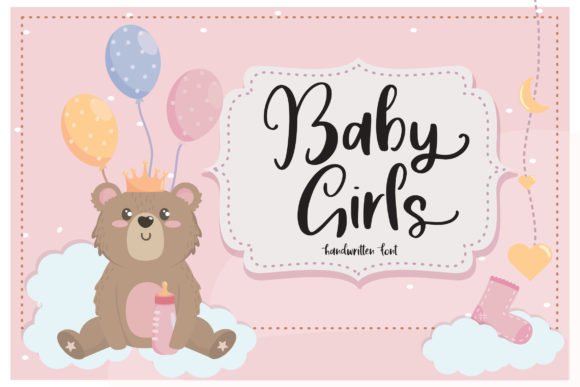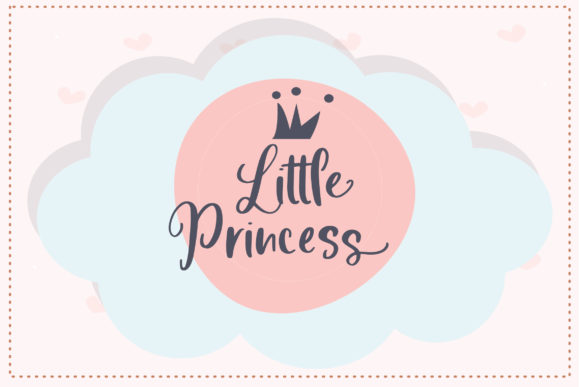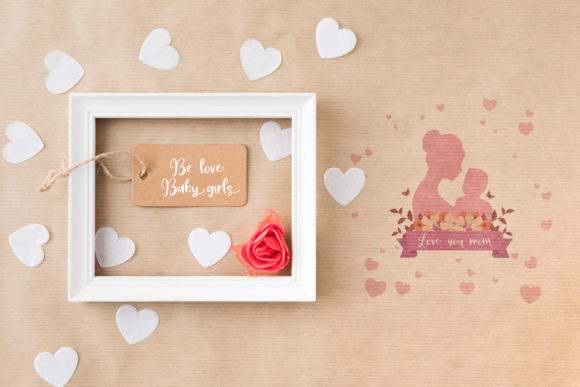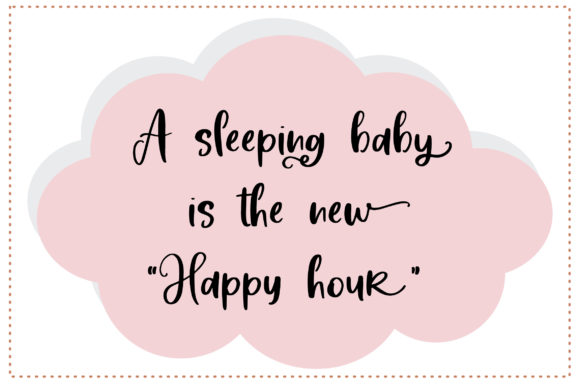
HomeScript FontsBaby Girls Font Script Fonts Baby Girls Font FacebookXPinterestWhatsApp Baby Girls Font Poster 2 Baby Girls Font Poster 3 Baby Girls Font Poster 4 Baby Girls Font Poster 5 About Baby Girls Font Baby Girls is a bold script typeface with a joyful feel. It is great for various designs with playful themes. DOWNLOAD NOW People also explored Saturday Feelings Font Bright Star Font Sweet Anime Font Dreamhigh Font Snowmen Font Storycold Font Rustic Garden Font Rumput Font Hand Lettering Thin Font 277 0 TagsBaby Girls Font Previous articleCurriwiz FontNext articleQiara Duo Font LEAVE A REPLY Cancel reply Comment: Please enter your comment! Name:* Please enter your name here Email:* You have entered an incorrect email address! Please enter your email address here Website: Save my name, email, and website in this browser for the next time I comment. Personal Use Free Po Beef Personal Use Free Read more about this font Market Love Personal Use Free Read more about this font Awkward Personal Use Free Read more about this font Tanpax Personal Use Free Read more about this font BLOG Exploring Font Trends Shaping Communication in the Digital Era Fonts, like all design elements, are subject to trends. They play a crucial role in communicating a brand's personality,... Where to Buy American Fonts Online in 2024 Best Fonts for T-Shirt Design – Top 2025 Picks Free vs Paid Fonts: Why Investing in Premium Fonts Is Worth It